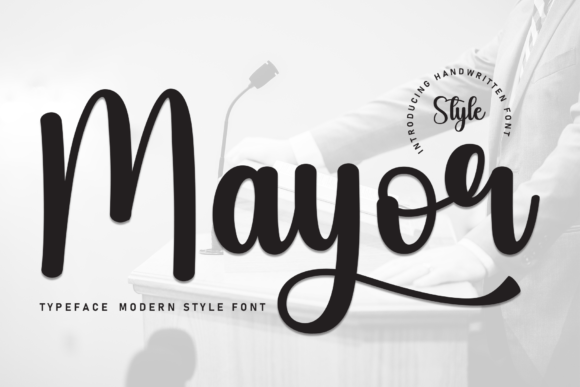
In a whimsical world of crafting, where expression meets creativity, Mayor Font, the script masterpiece by William Jhorby, awaits your embrace. Step into a realm of heartwarming sentiments, where this enchanting font dances across your designs like a playful breeze.
Mayor, with its swirling strokes and cheerful curves, beckons you to indulge in heartfelt creations. Its charming personality adds a touch of magic to every letter, making it the perfect companion for crafting personalized cards, heartfelt invitations, and any project yearning for a whimsical flair.
Imagine your words taking on a life of their own, twirling and twirling like a joyful melody. Mayor's graceful lines evoke a sense of nostalgia and warmth, inviting recipients to bask in the sentiments you convey. It's the perfect font for capturing the essence of love, friendship, and all the heartfelt moments life has to offer.
With Mayor as your creative ally, you'll discover a world of endless possibilities. Whether you're designing Christmas bags, adorning clothing with heartwarming messages, or crafting digital designs that spark joy, Mayor's versatility knows no bounds. Its charming presence adds a touch of whimsy to every creation, making it a must-have for designers seeking to sprinkle happiness into their work.
So, embrace the enchanting world of Mayor Font. Let its playful strokes ignite your imagination and create designs that resonate with warmth and charm. Whether you're a seasoned designer or just starting your creative journey, Mayor is the perfect companion to add a touch of magic to your creations.